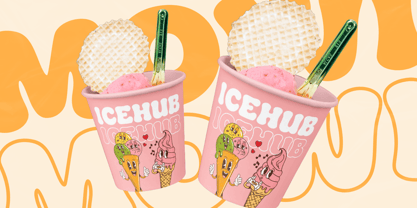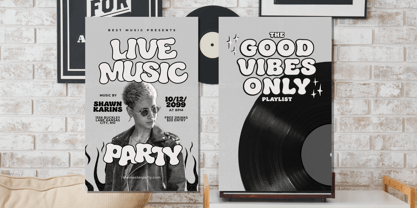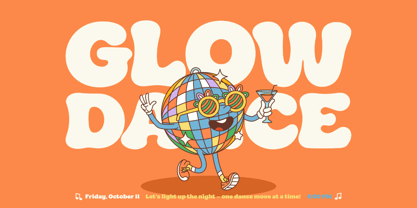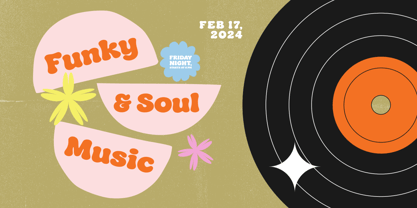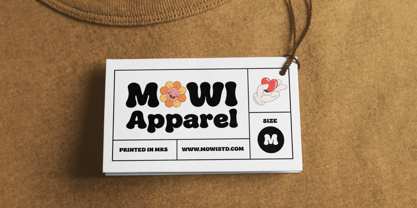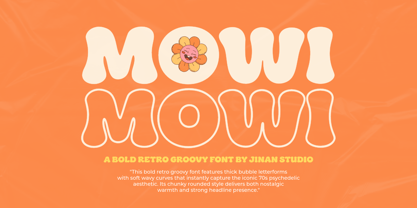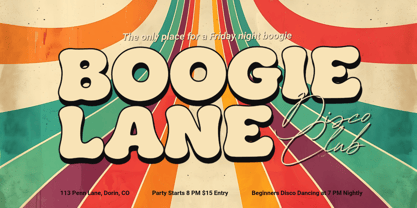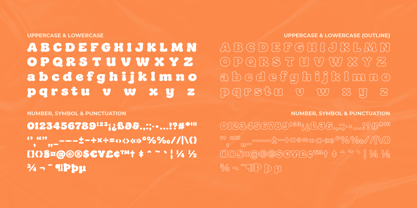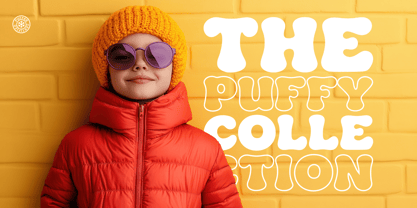
Mowi
by Jinan Studio
Mowi is a bold retro groovy font inspired by the playful spirit of the 70s. Featuring thick bubble letterforms and soft wavy curves, this typeface brings instant warmth, fun, and nostalgic energy to any design. Its chunky rounded shapes create a strong yet friendly headline presence, making it perfect for posters, branding, packaging, social media graphics, kids projects, and retro-themed designs. Mowi captures that psychedelic vintage vibe while staying clean and easy to read. Features A set of uppercase and lowercase glyphs Number, symbol, and punctuation Multilingual Support Outline Version